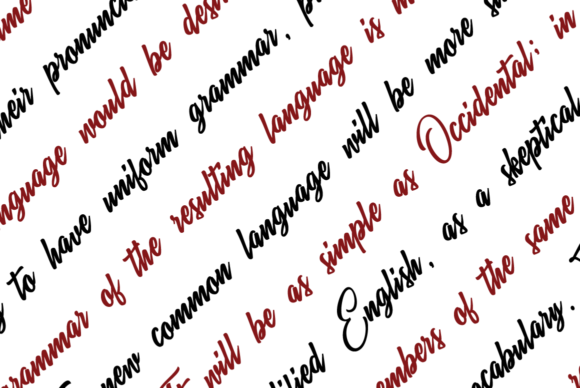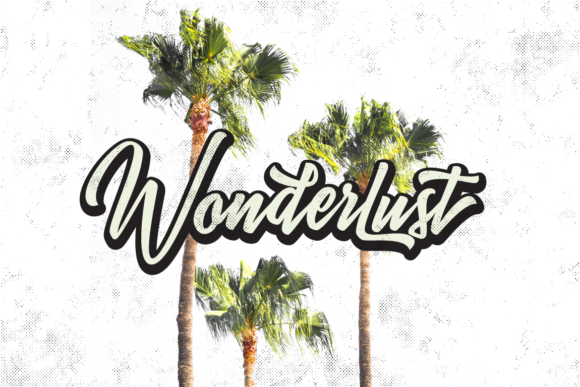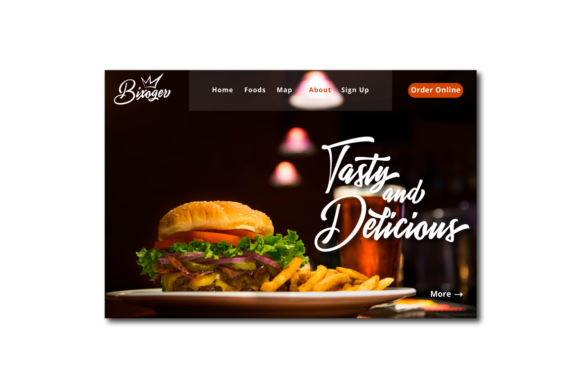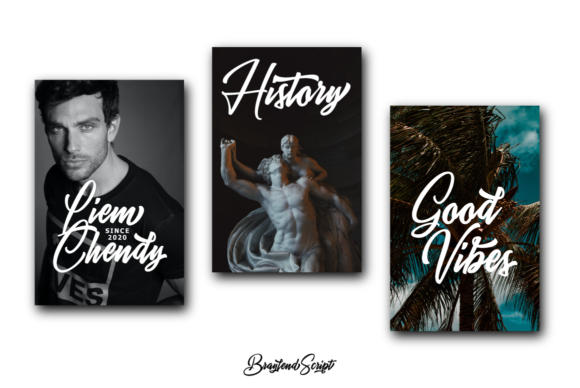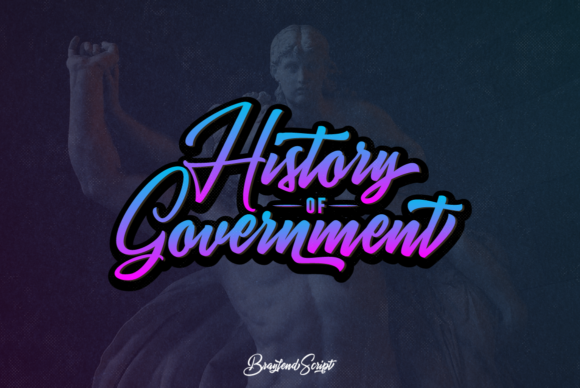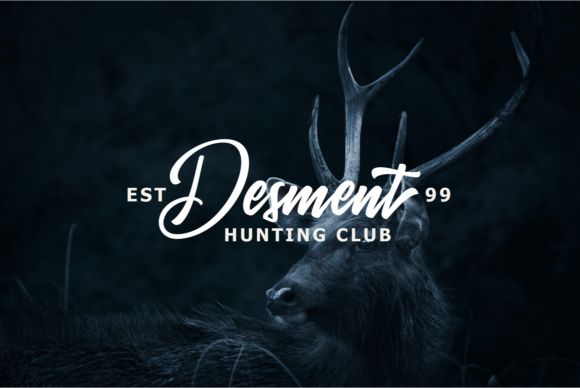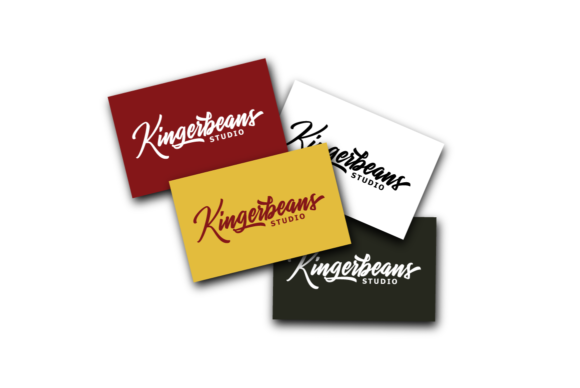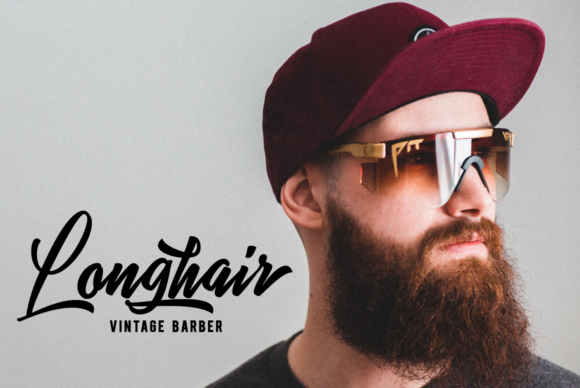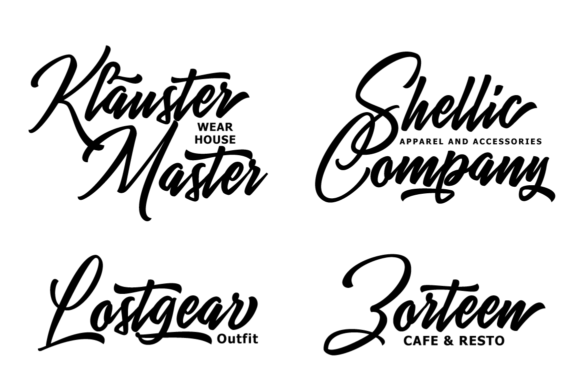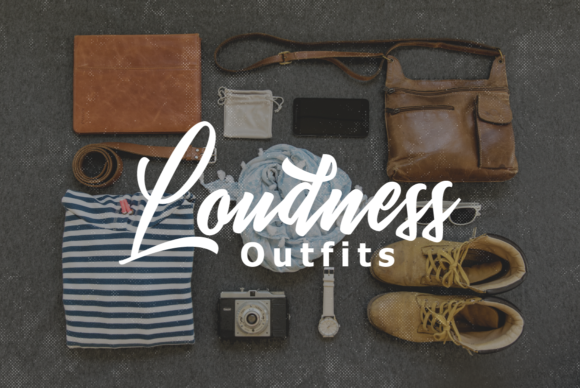
The Braylend Script Font
About The Braylend Script Font
The Braylend Script is a unique and interesting handwritten font. You can use it as a logo, badge, insignia, packaging, headline, posters and more. Add it to your most creative ideas and notice how it makes them come alive!